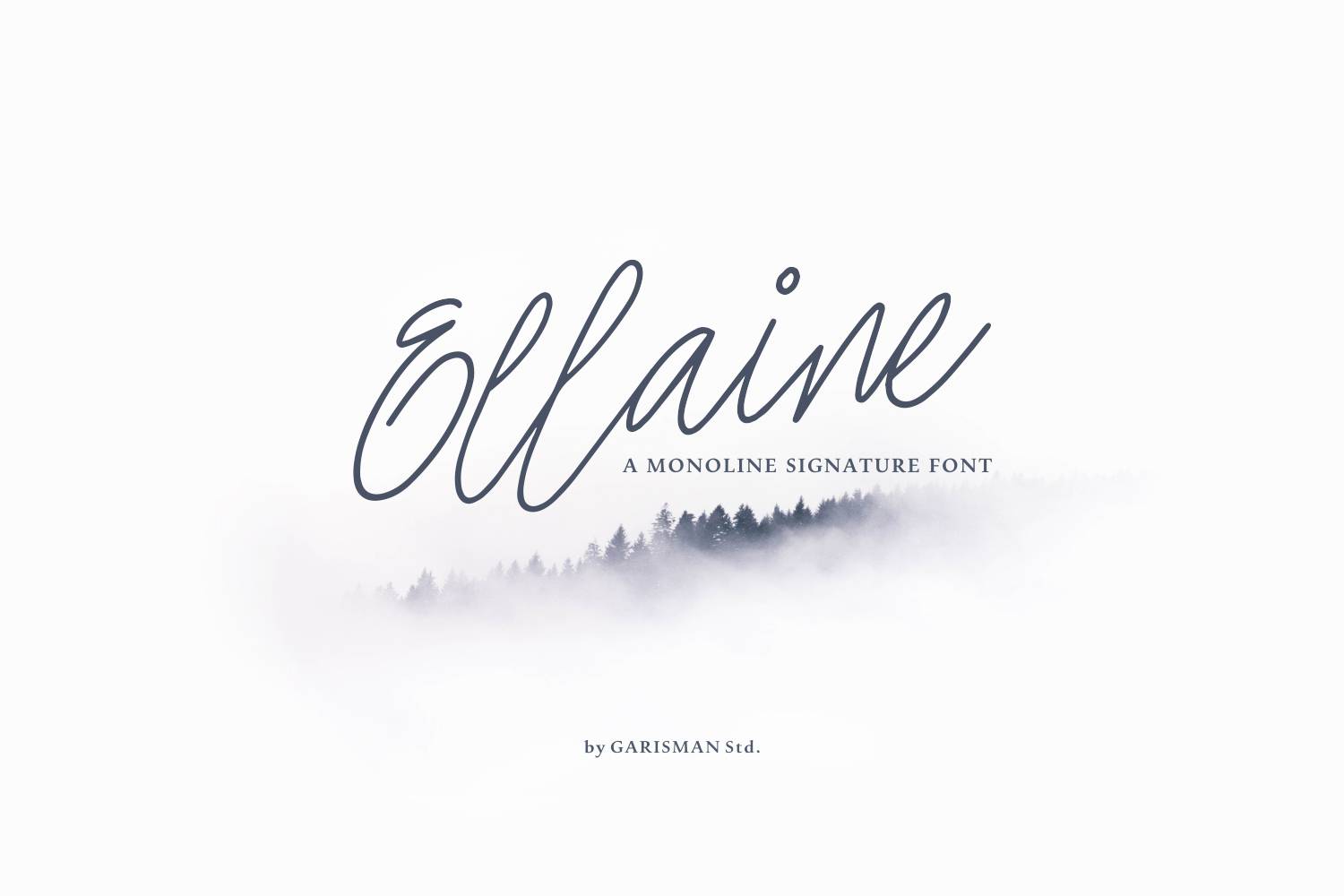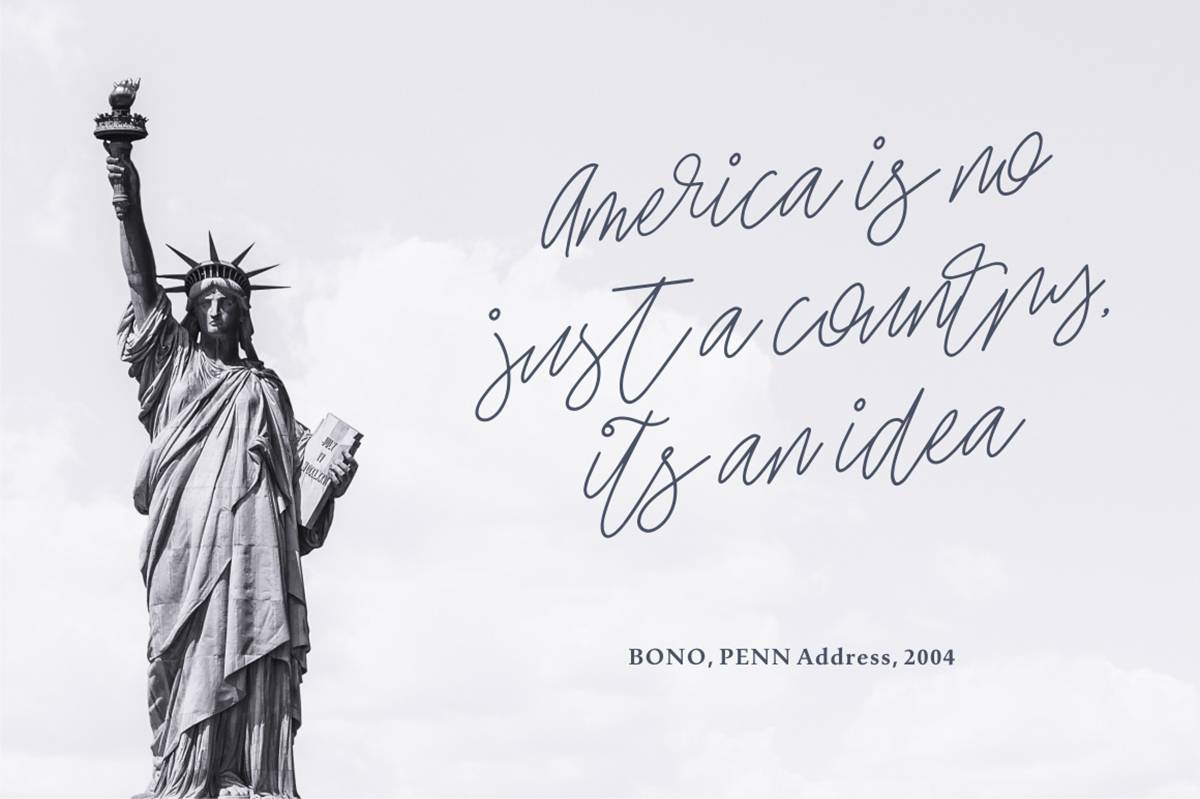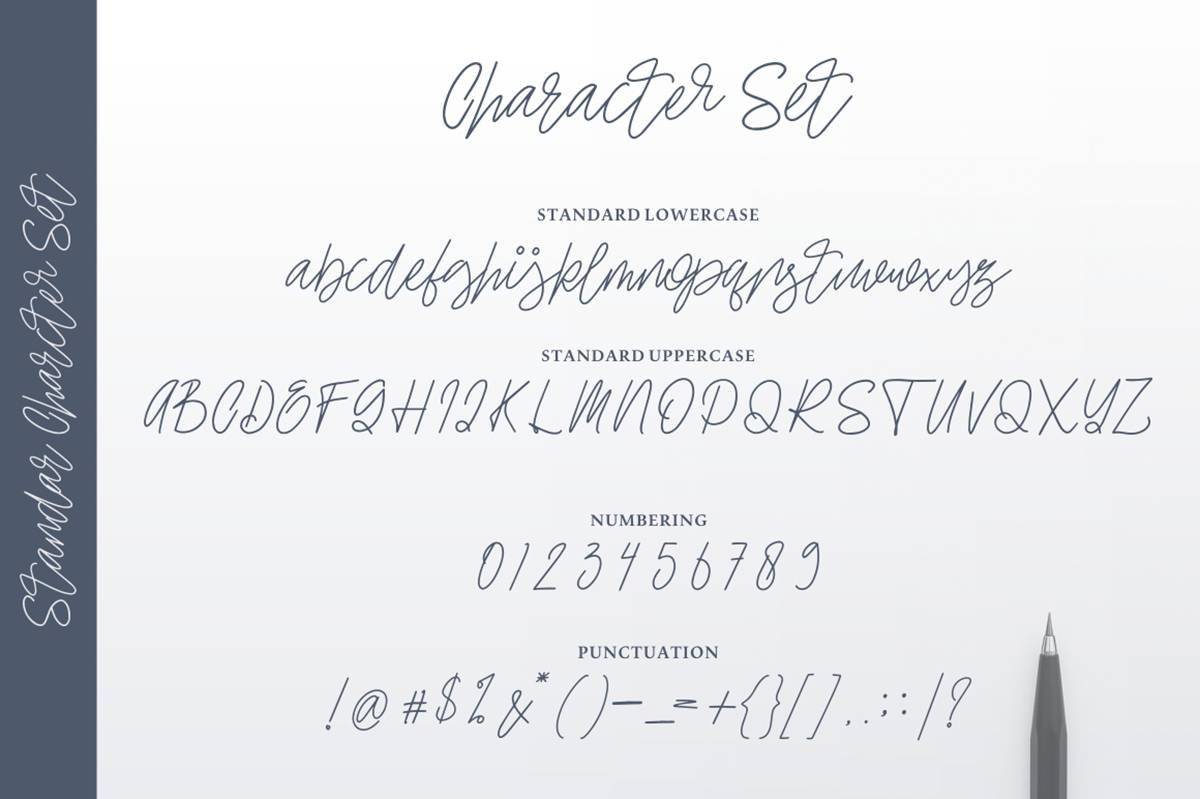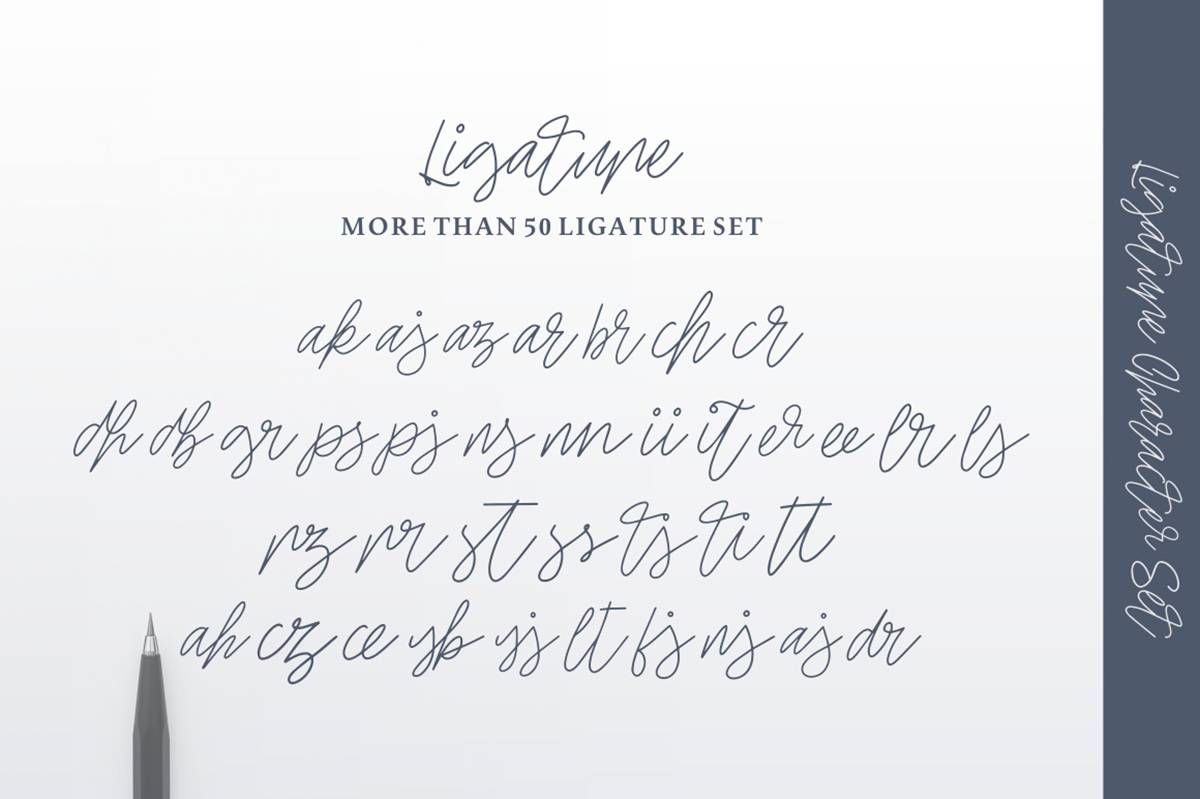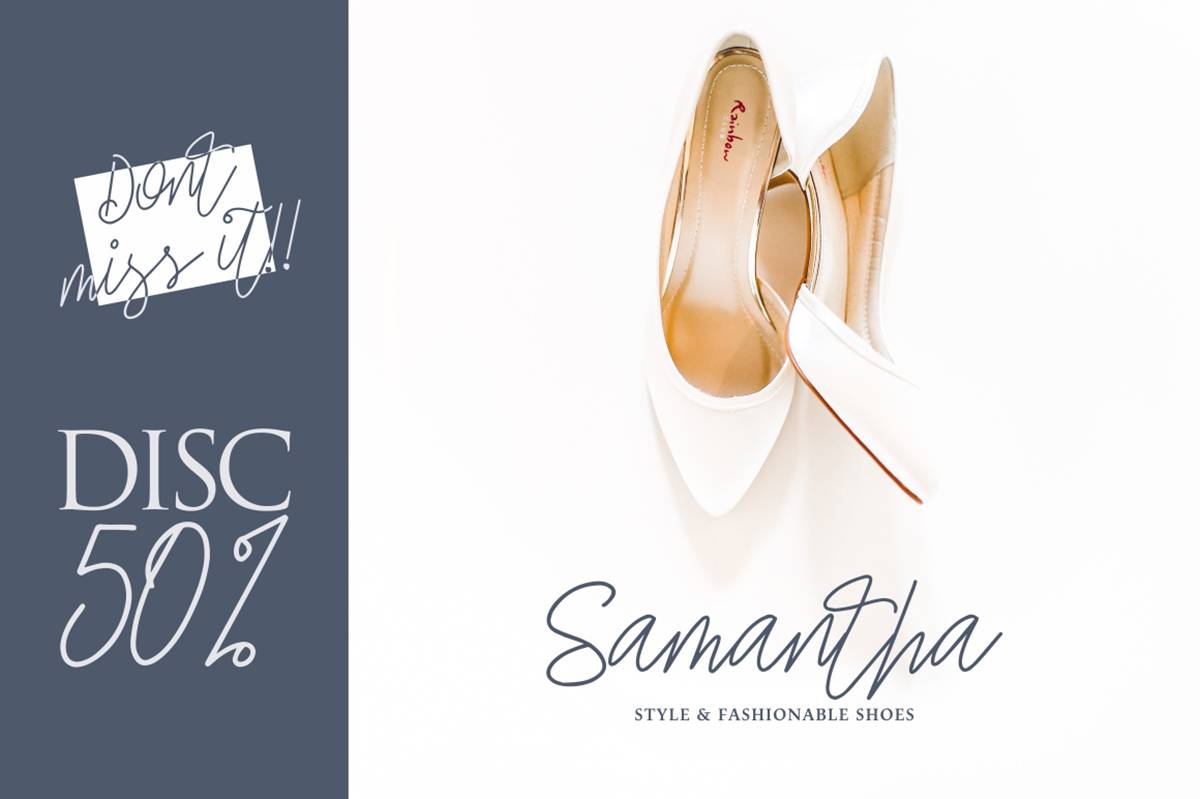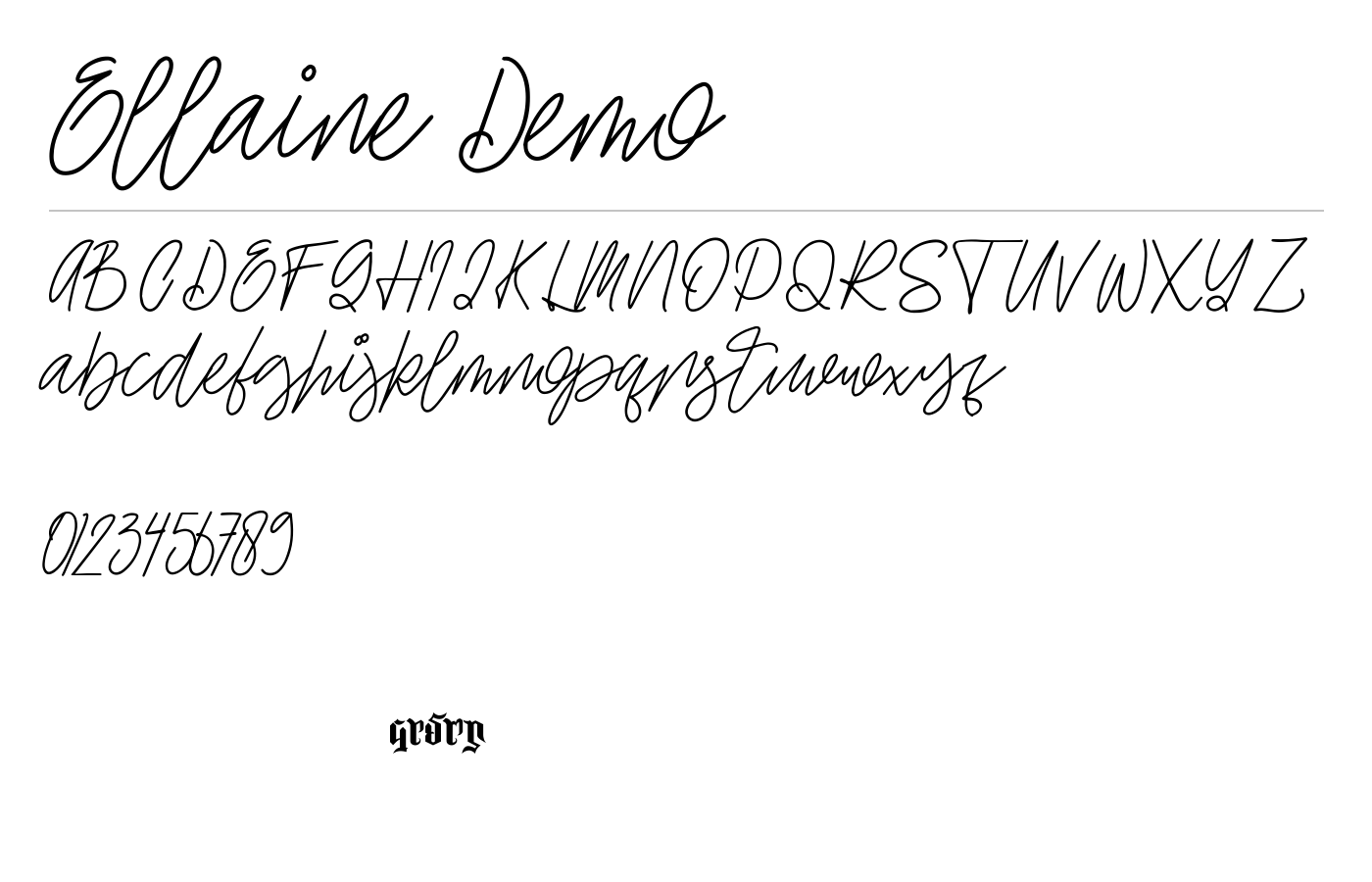
Ellaine Font is an elegant and delicate script typeface with a smooth, flowing style that mimics natural handwriting. Its slender, slightly condensed letterforms and consistent weight create a sophisticated yet approachable feel, making it ideal for personal branding, invitations, and stylish editorial designs that seek a refined and graceful touch.
Ellaine Font
About Ellaine Font